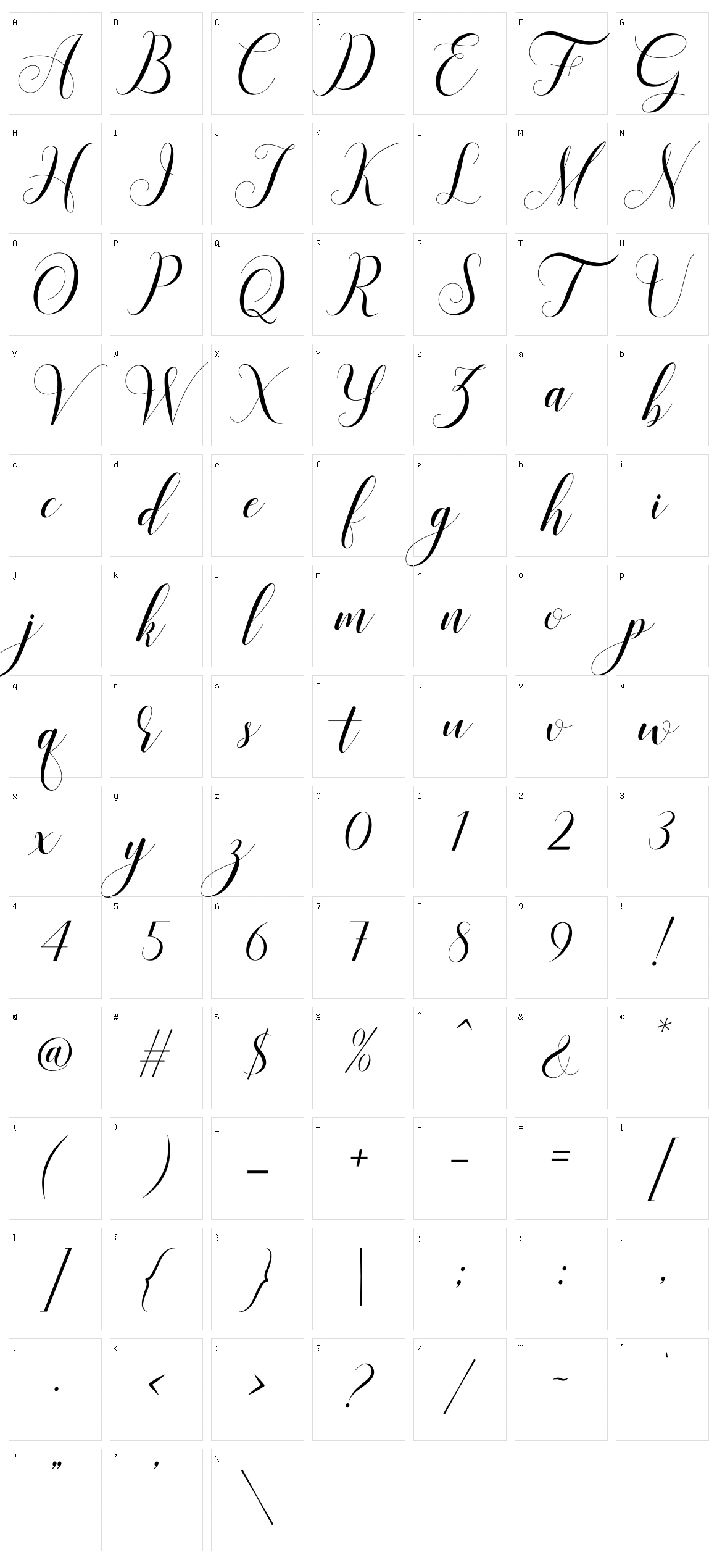
The free font Mariana Oghawa is carefully designed by Fanastudio, showcasing a thoughtful balance of creativity and usability and falls under the Script font style. When you download the ZIP file, it contains only 94.5 KB of font files, making it lightweight and quick to download. Please review the license details below to understand permitted usage and distribution rights. If license information is not available, we recommend using this font for personal projects only or contacting the author directly for commercial usage permissions.